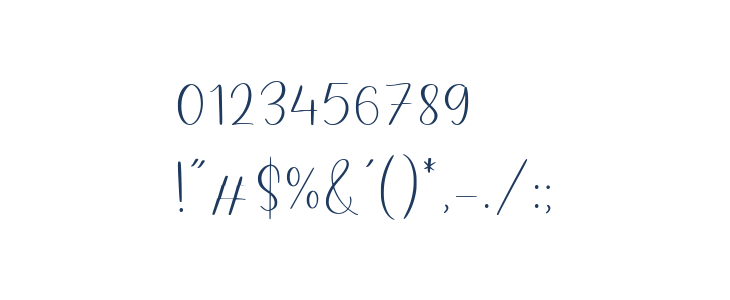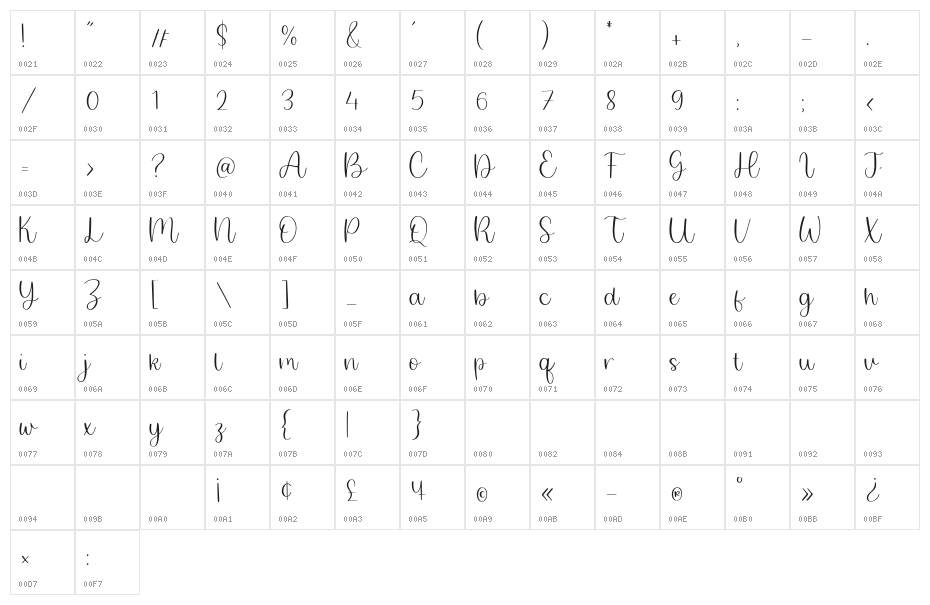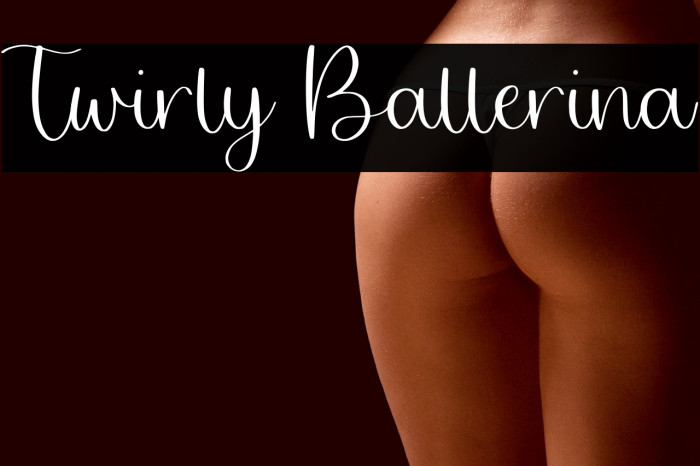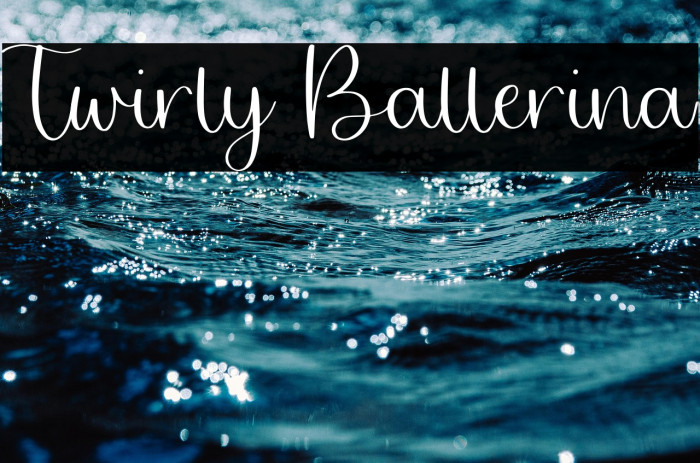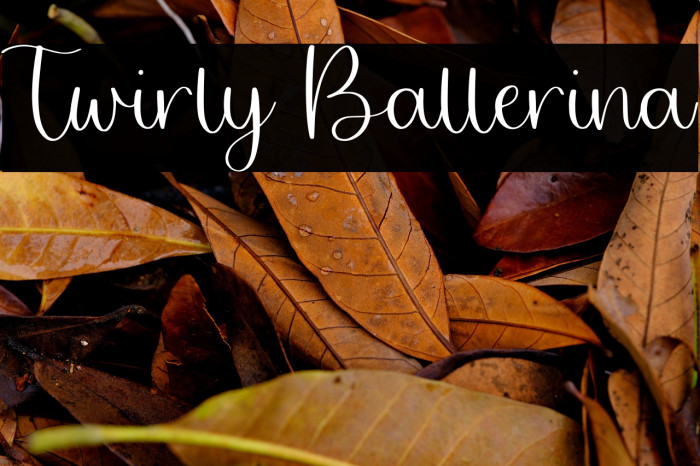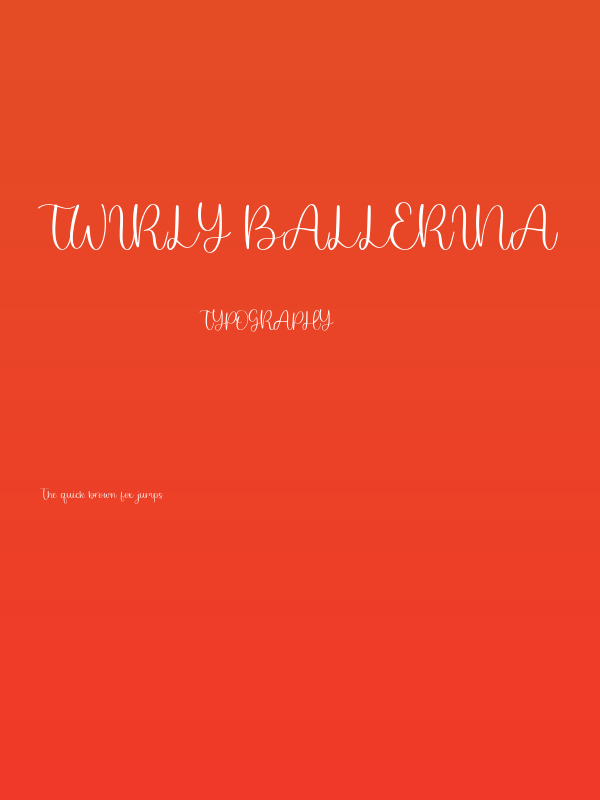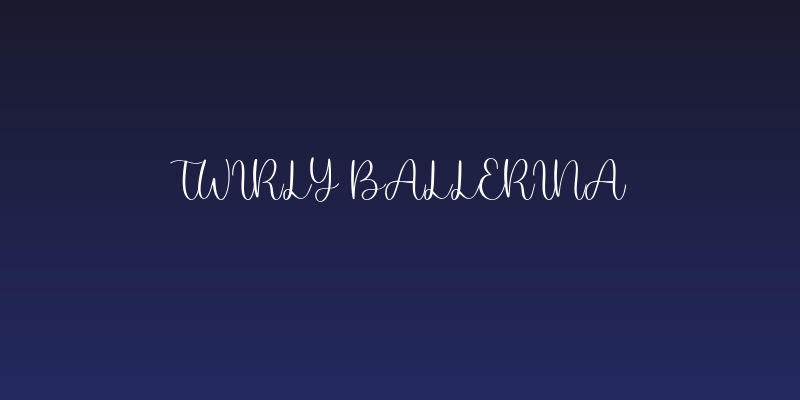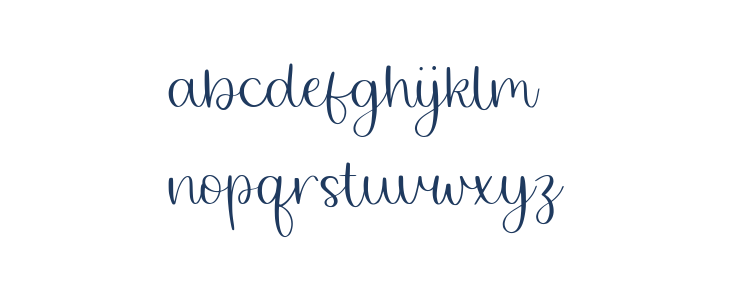
Twirly Ballerina Font
Twirly Ballerina Description
This font features a whimsical and elegant script style, characterized by flowing, interconnected letters that mimic the fluidity of handwriting. The uppercase letters are tall and graceful, with loops and curves that add a sense of movement and flair. The lowercase letters maintain a consistent style, with smooth transitions and rounded forms. Numbers and special characters are designed to complement the overall aesthetic, ensuring a cohesive look. The font's playful yet sophisticated appearance makes it suitable for a variety of creative applications.